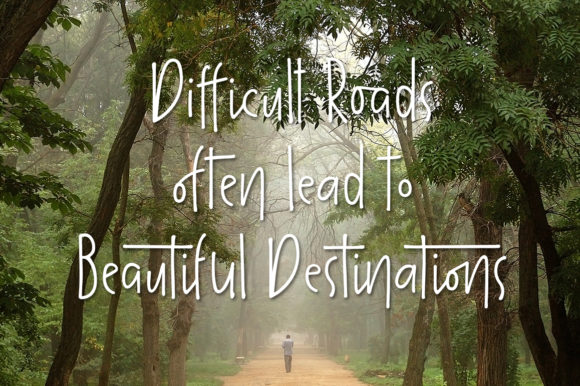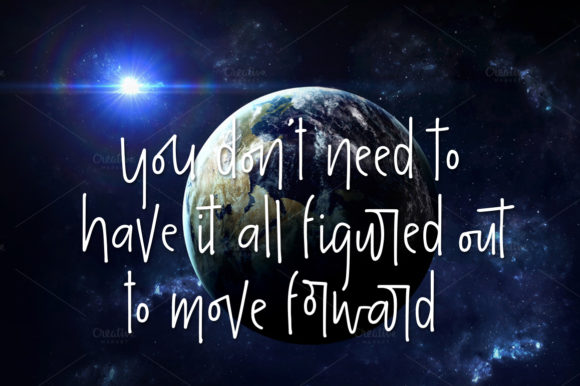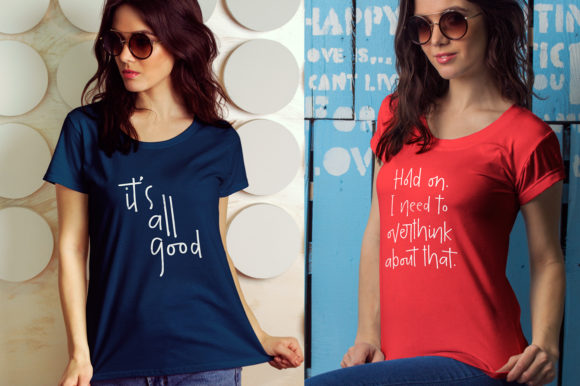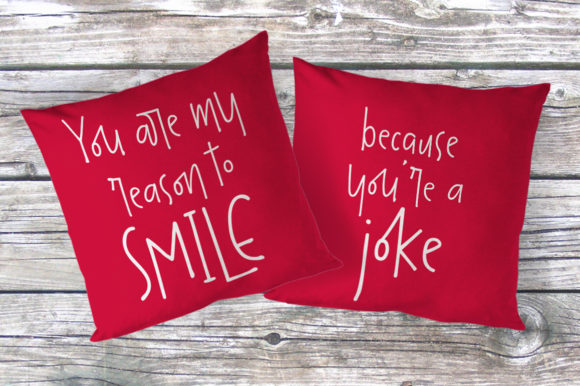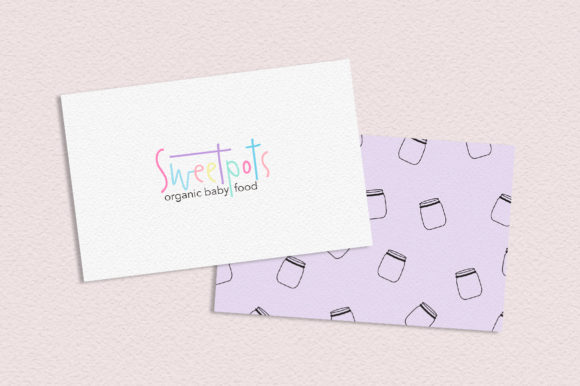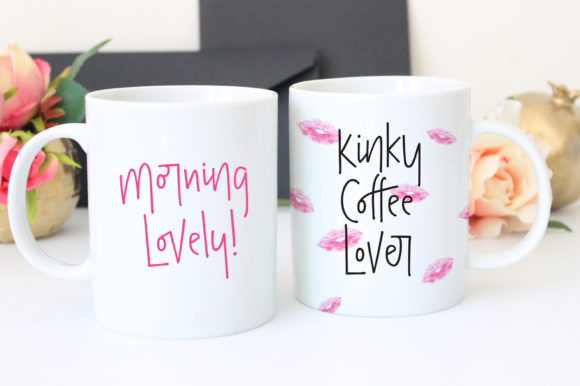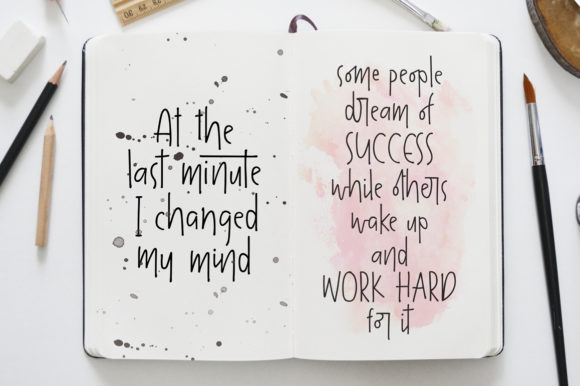
The Overthinkers Font
About The Overthinkers Font
The Overthinkers is a stunning script font that’s full of character. It will add a unique touch to any design project!